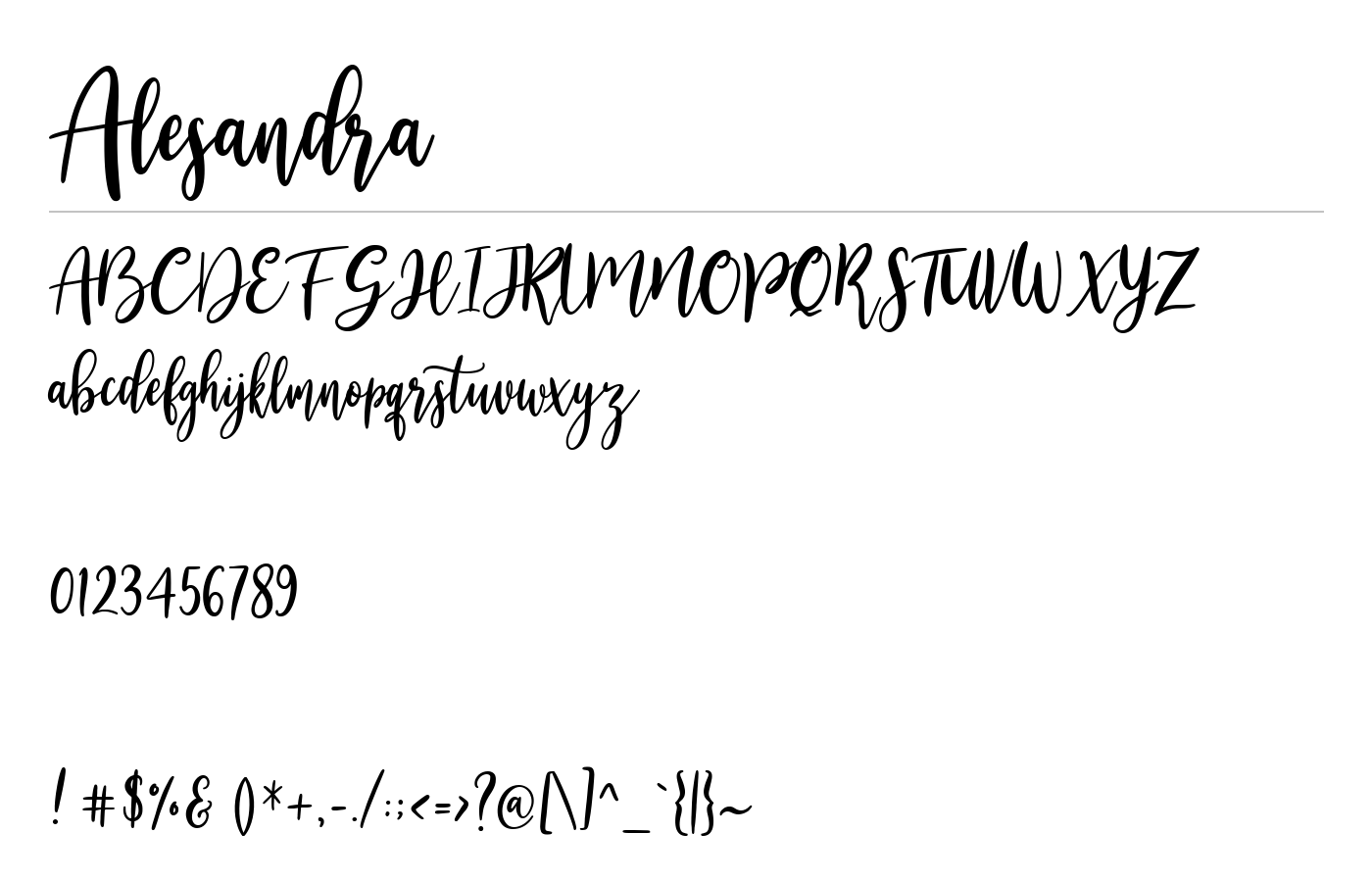
Alesandra is a stylish, modern script font with a smooth, handwritten feel that combines elegance and playfulness. Its flowing, slightly condensed letterforms with varied stroke weights make it perfect for creative branding, invitations, and eye-catching headlines where a personal, friendly touch is desired. This font works beautifully in contexts that need charm and sophistication without losing warmth or approachability.
Alesandra Font
About Alesandra Font